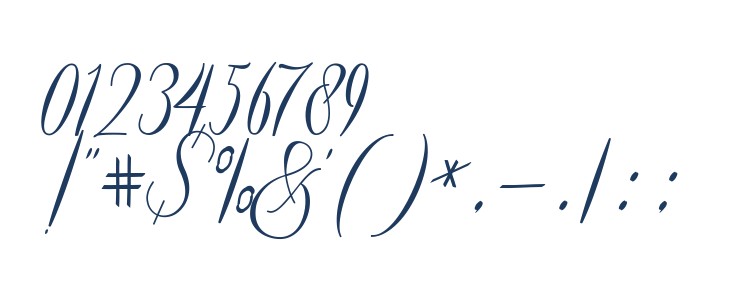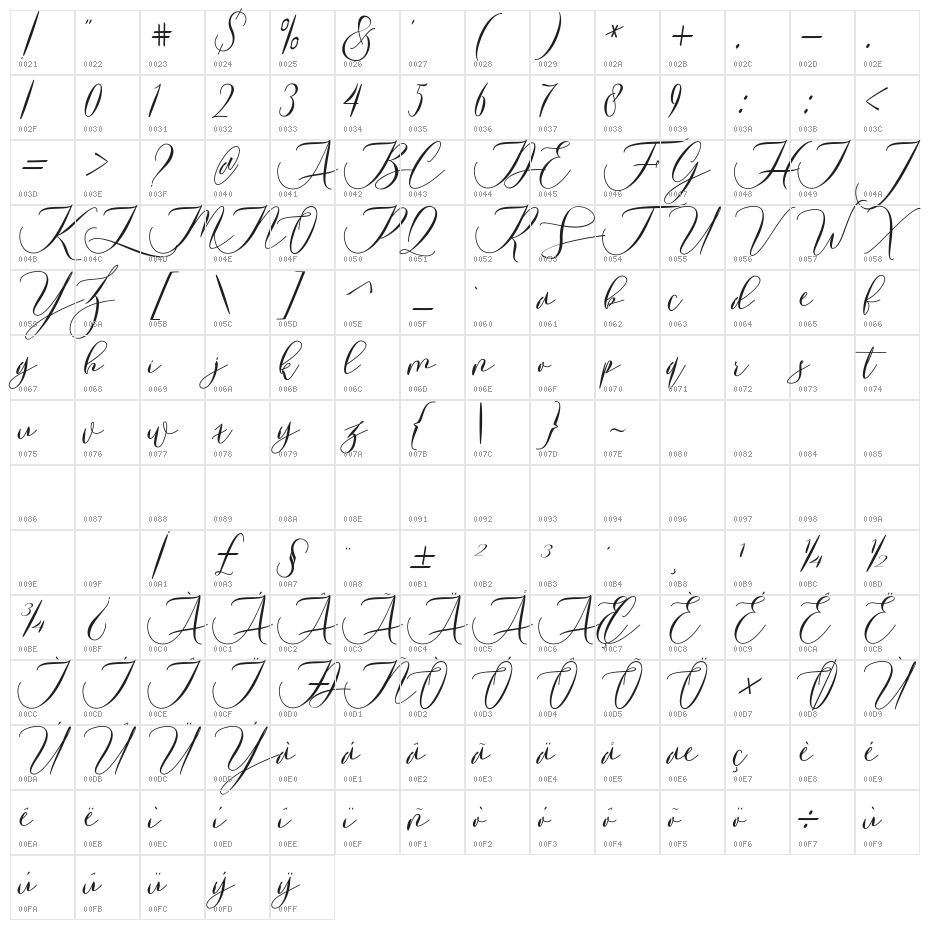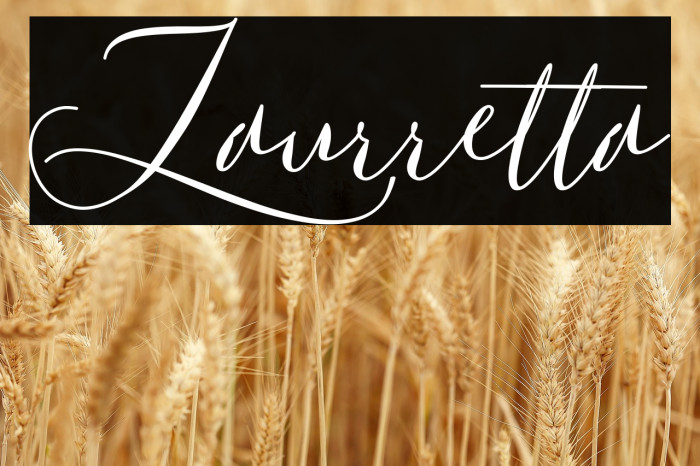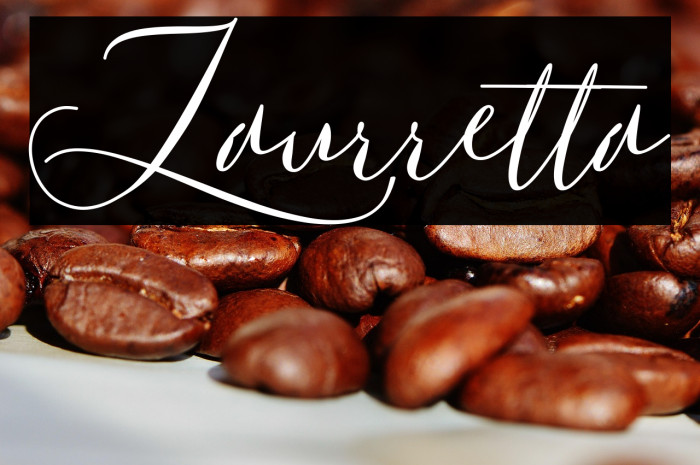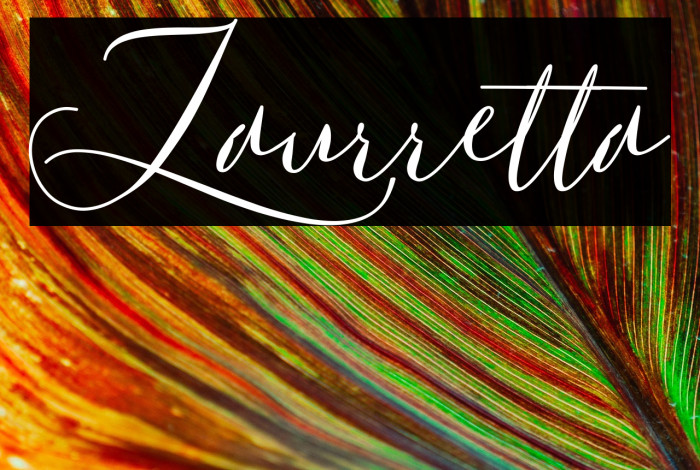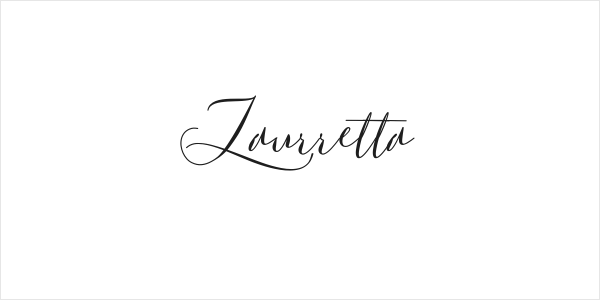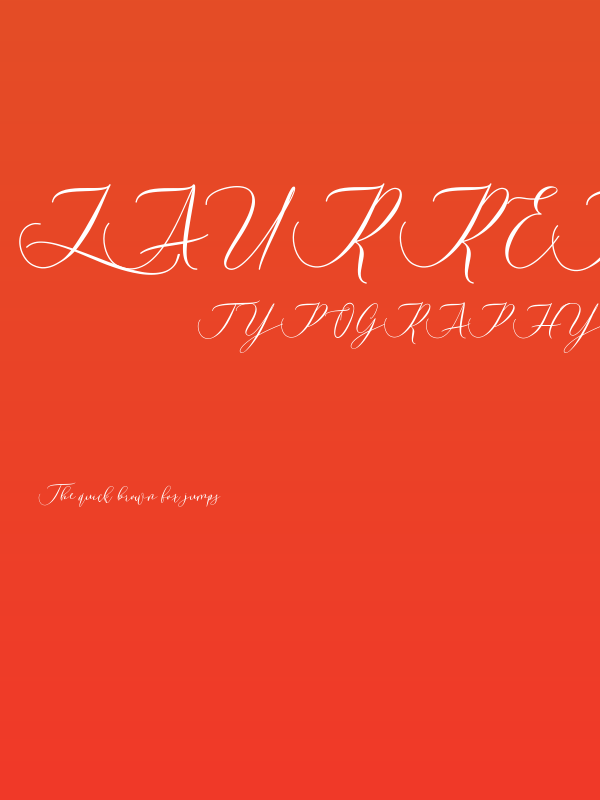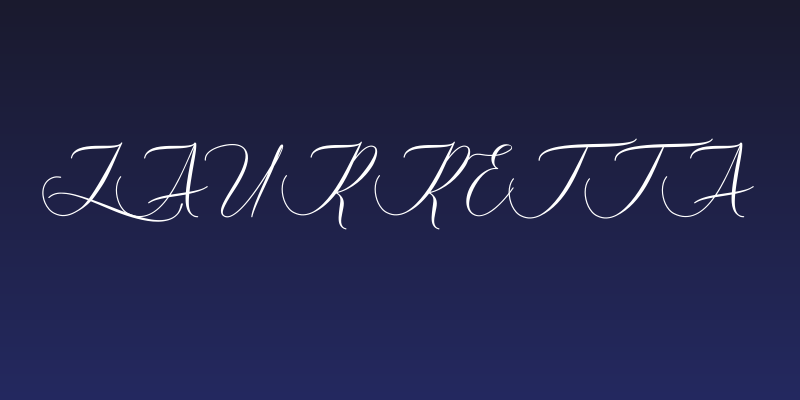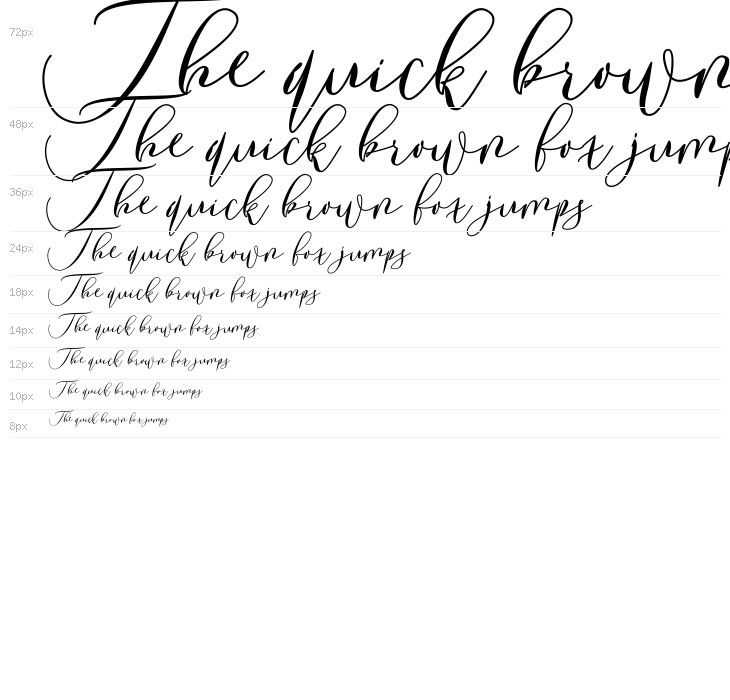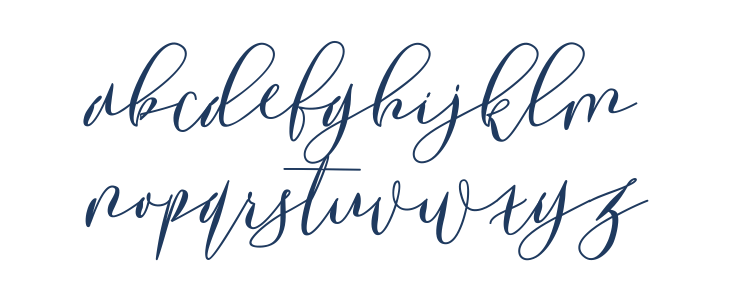
Laurretta Font
Laurretta Description
This font features an elegant and flowing script style, characterized by its smooth, cursive strokes and graceful loops. The uppercase letters are slightly more restrained, with a refined and sophisticated appearance, while the lowercase letters exhibit a more playful and dynamic flair. The numerals are consistent with the overall script style, maintaining a balance between readability and decorative appeal. Special characters are seamlessly integrated, enhancing the font's versatility. This font is perfect for projects that require a touch of elegance and sophistication, such as wedding invitations, branding, and high-end product packaging.
| Use Case | Headlines, Invitations, Branding |
| Proposed Projects | Ideal for wedding invitations, branding, high-end product packaging, and elegant stationery. |